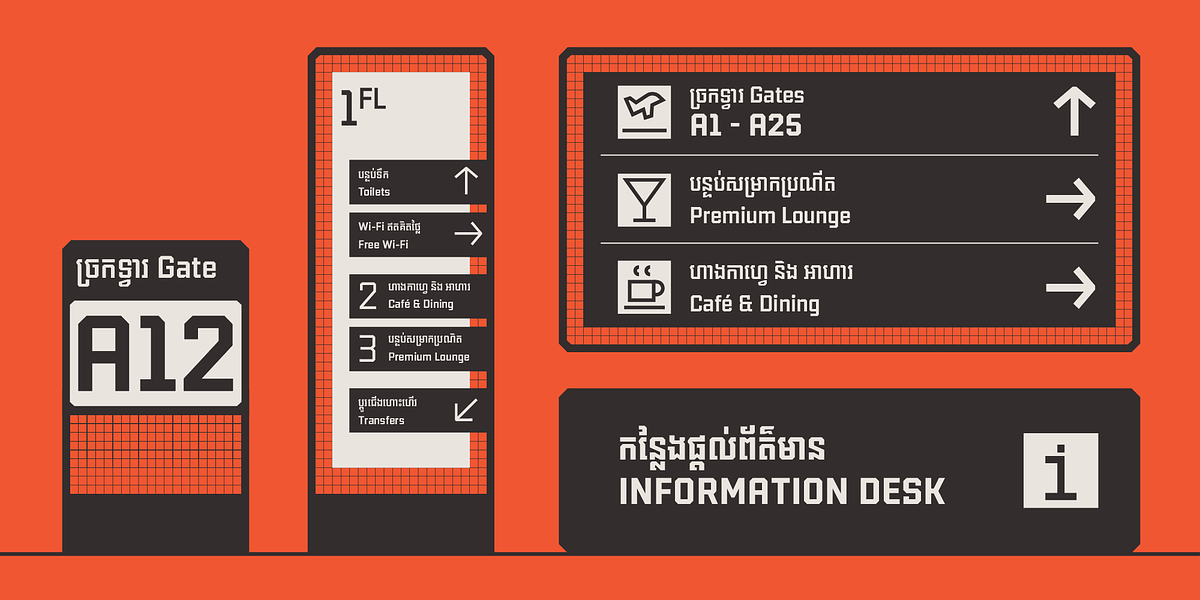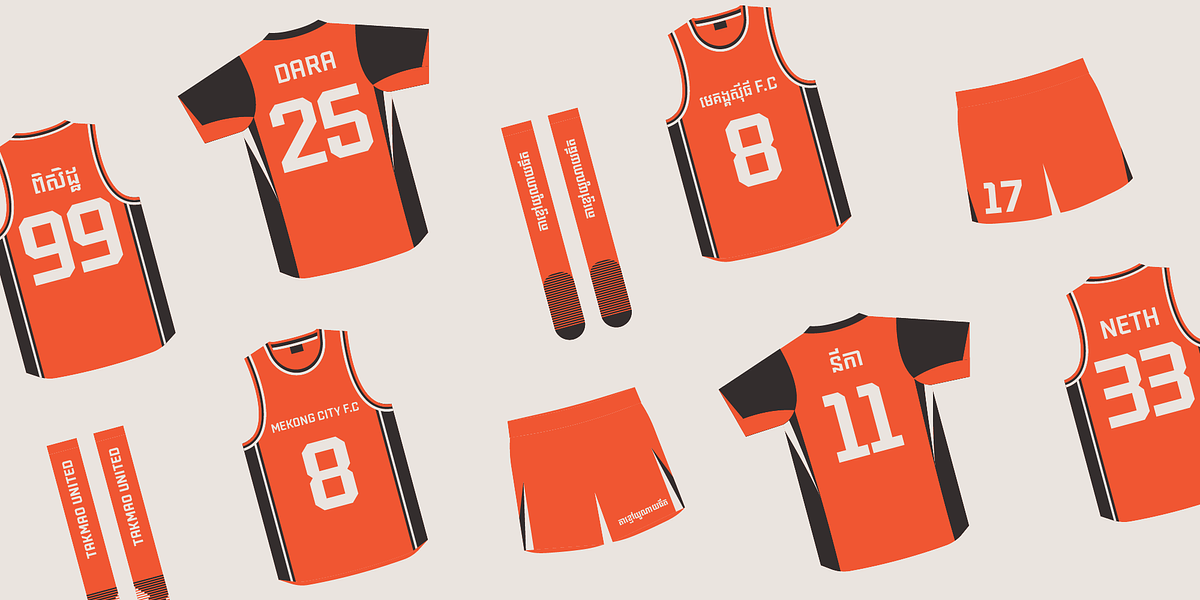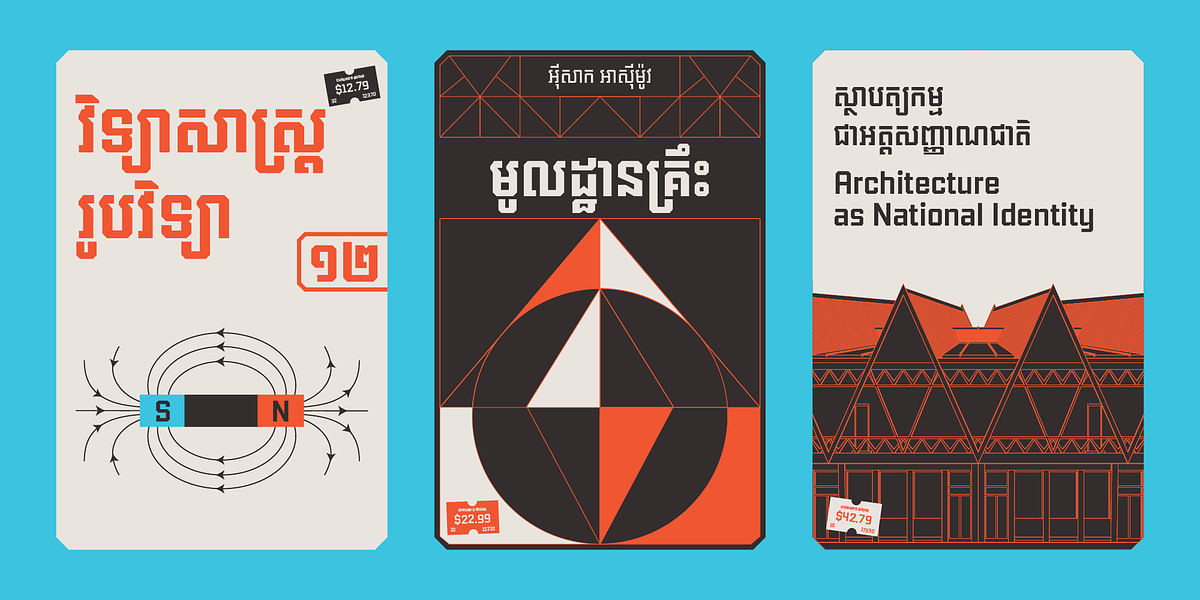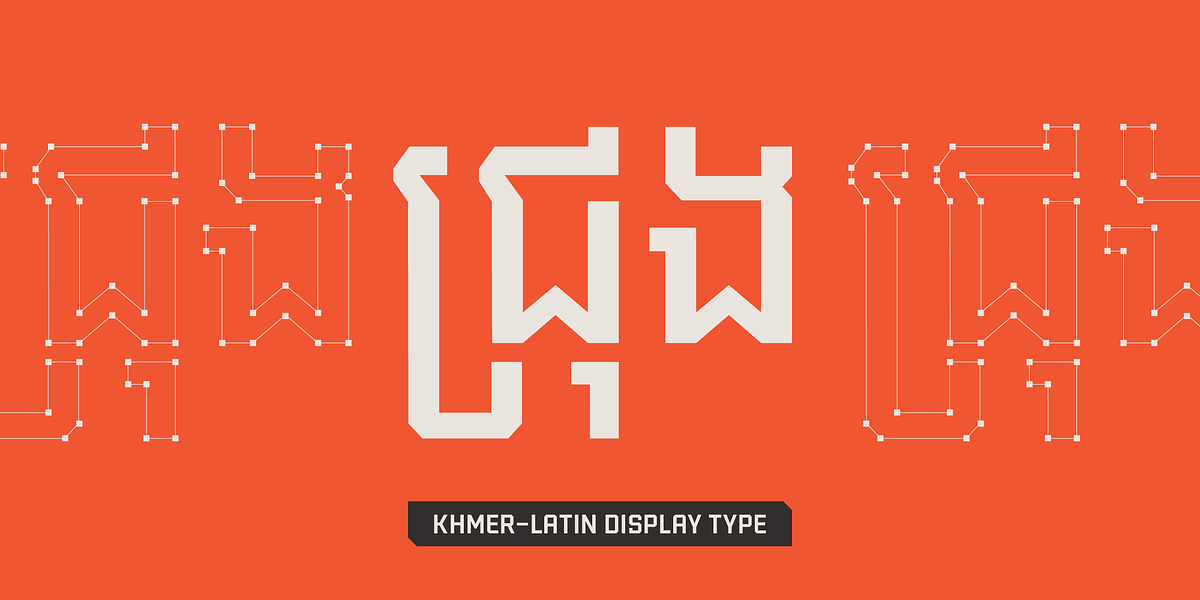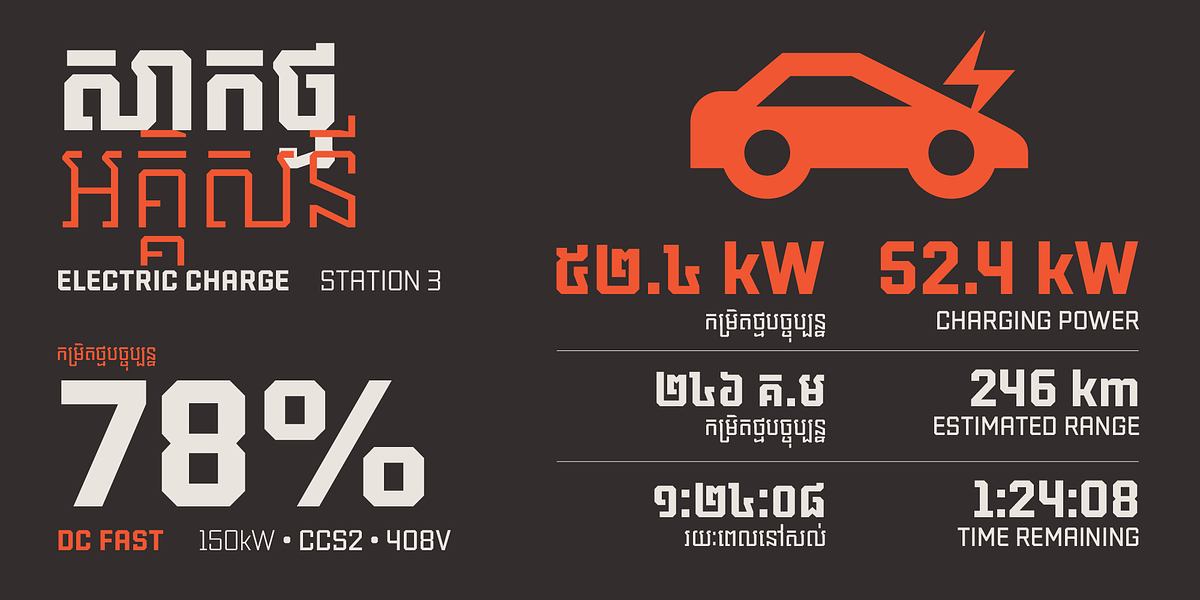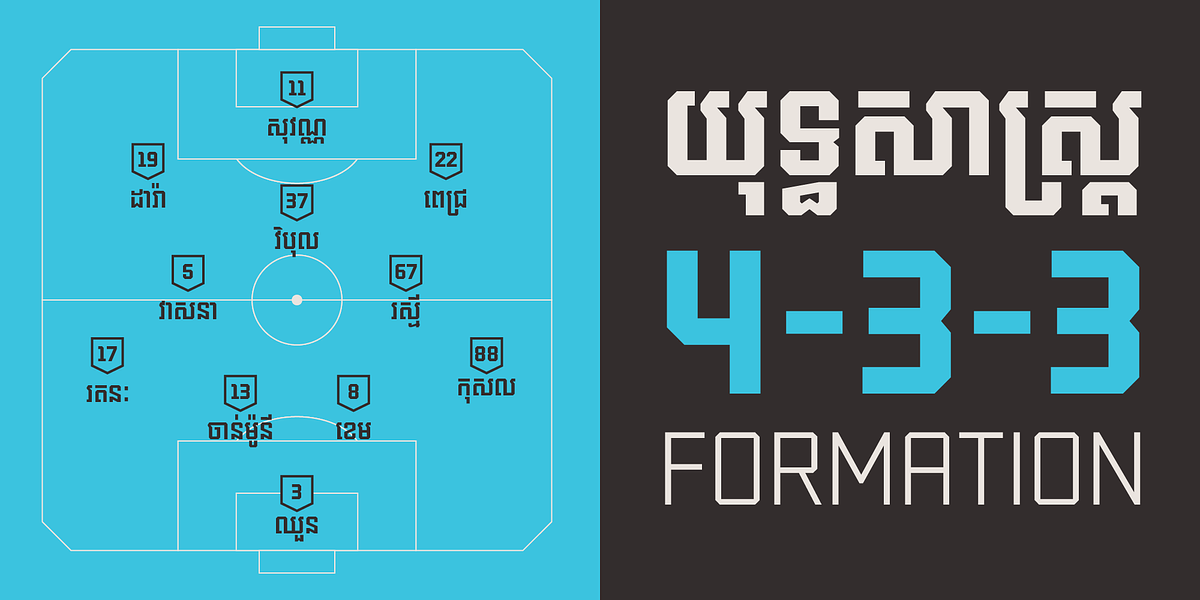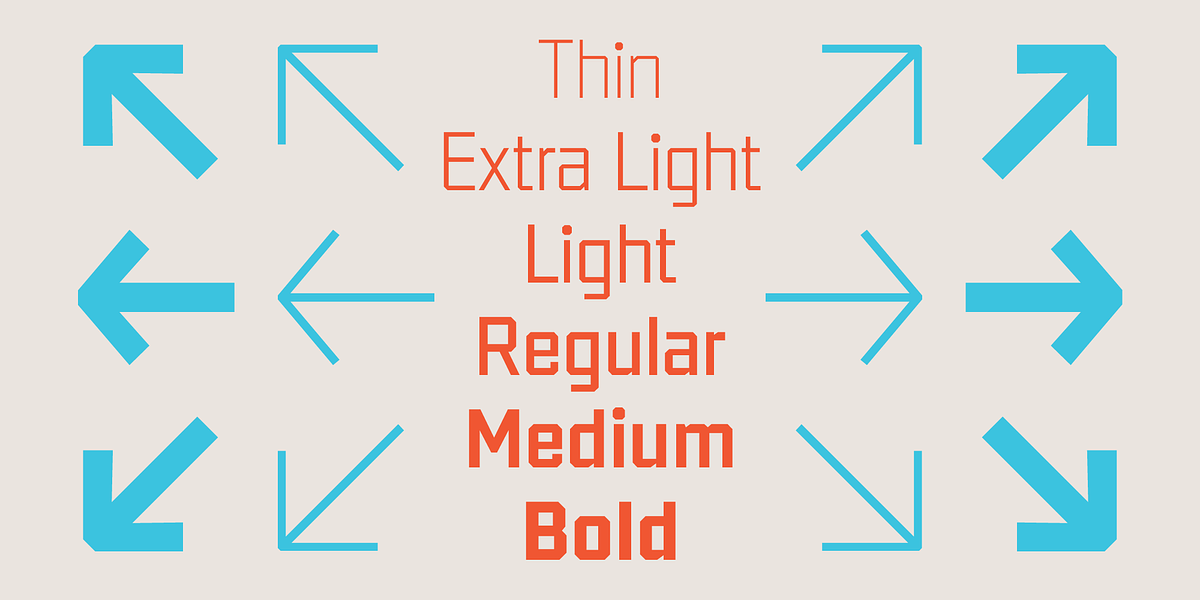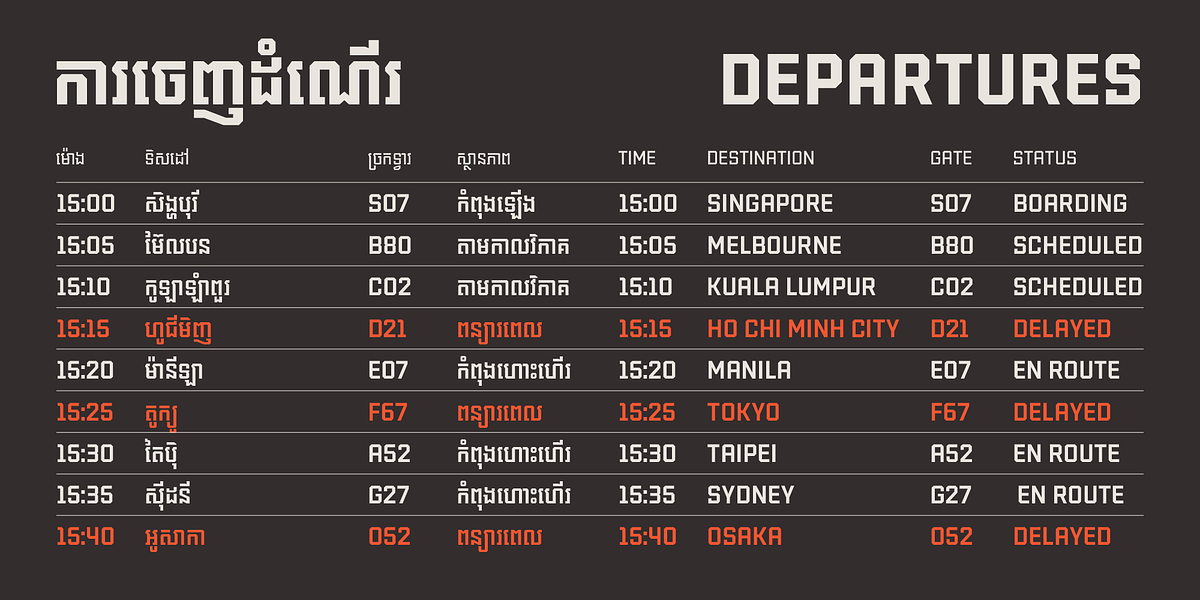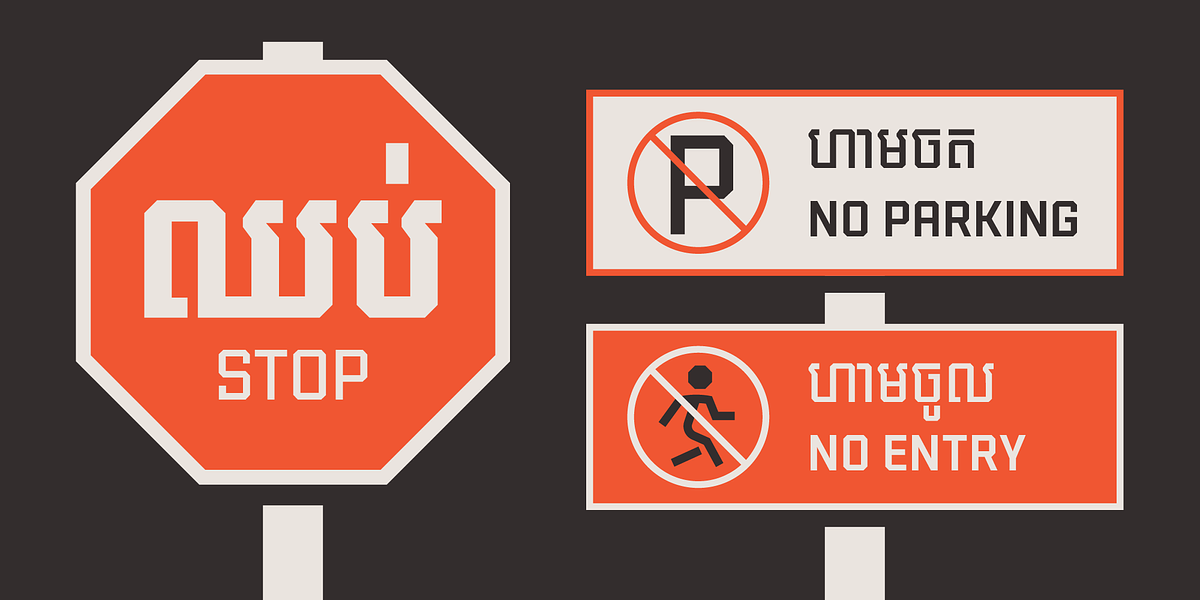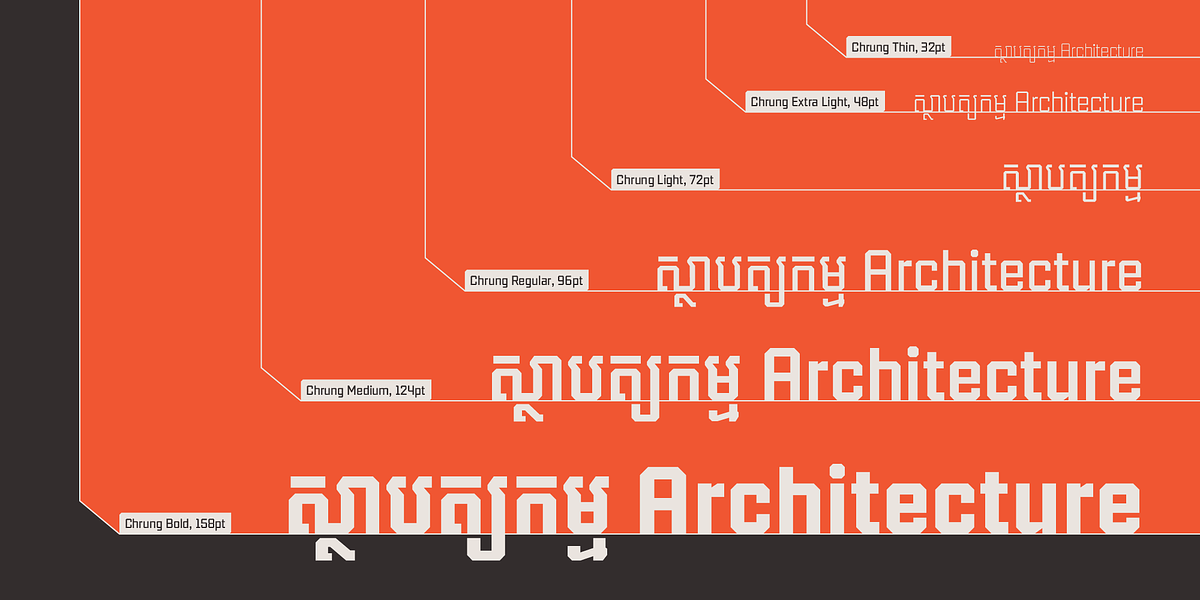
Chrung — Khmer Font
About Chrung
Chrung is a Khmer-Latin display typeface defined by angular construction, where every terminal, joint, and endpoint is cut at the same decisive angle, stripping Khmer letterforms of their traditional curves and loops through loopless construction that reduces each character to its structural skeleton. Chrung's architectural design carries a consistent cut logic across both Khmer and Latin scripts, built from the same stroke construction and weight progression rather than two separate systems forced into alignment, with six weights spanning Thin to Bold that shift the angular cuts from precise and delicate at lighter weights to confident and load-bearing at heavier weights, making this display family ideal for signage, wayfinding, editorial headlines, sports branding, book covers, and digital interfaces while providing full Khmer Unicode shaping and extended Latin support that offers designers a structurally unified approach to bilingual display typography.